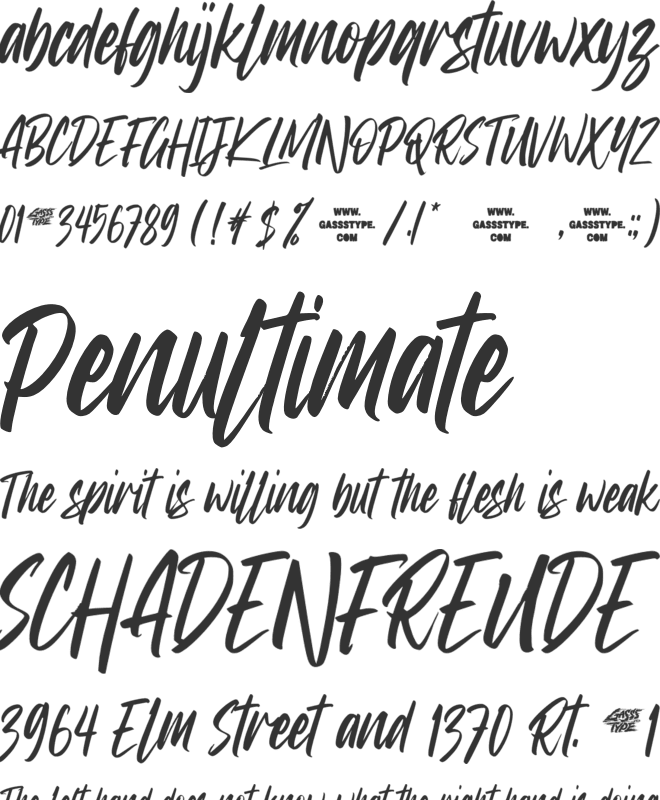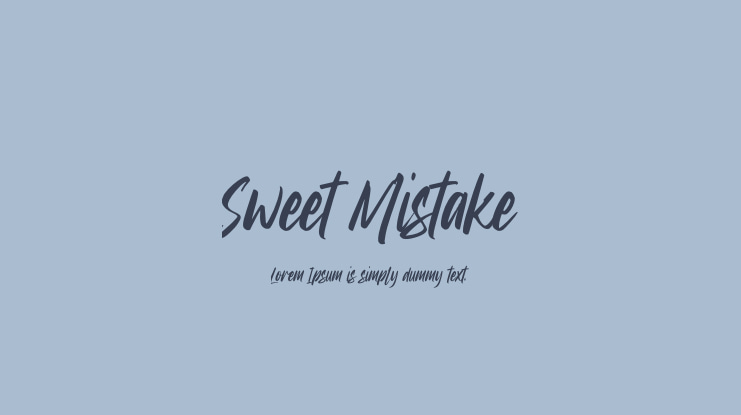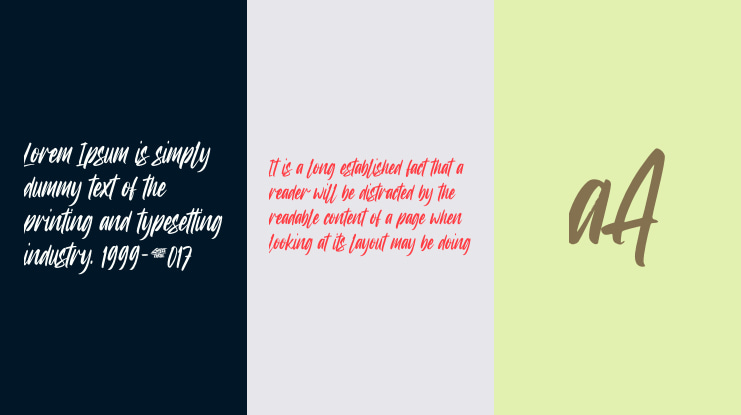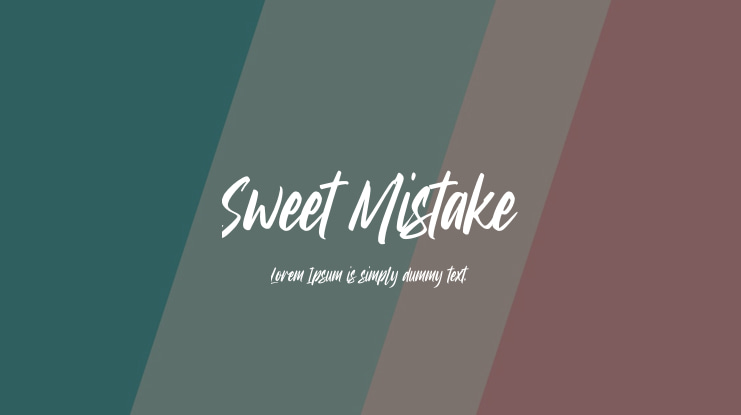
Sweet Mistake Font
Anang F & Malik Wsn | Gassstype© Studio 2024
Sweet Mistake
This is a Fast Brush Font, crafted by hand with numerous alternates and brush effects. It is perfect for making a bold statement in your designs.
Ideal Uses:
• Logos
• Posters
• Product Packaging
• Branding
• Advertisements
• Invitations
• Stationery
• Wedding Designs
• Labels
• Photography Watermarks
• Quotes
• And more
Features:
Add the bold and authentic character of this font to your next project to capture the essence of minimalistic aesthetics.
Sweet Mistake font preview